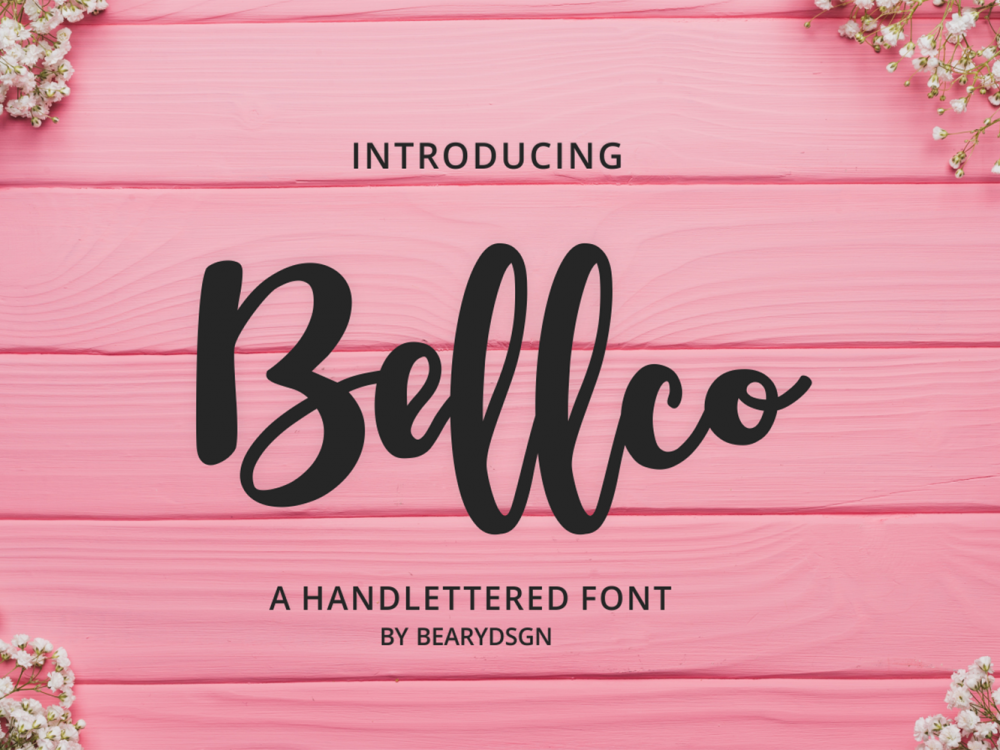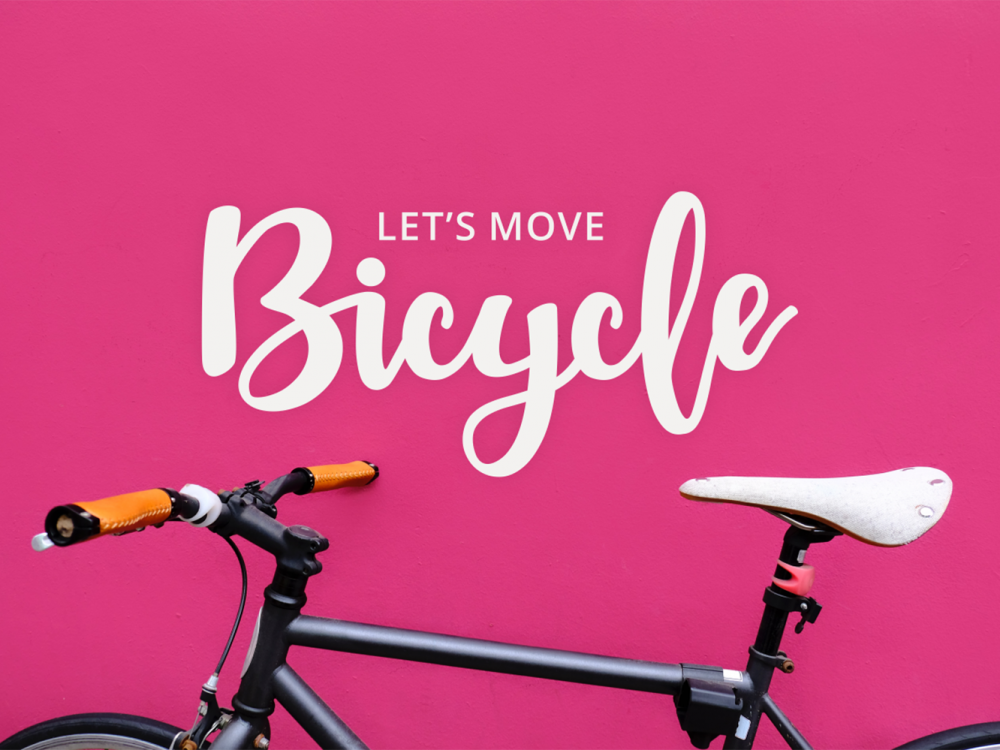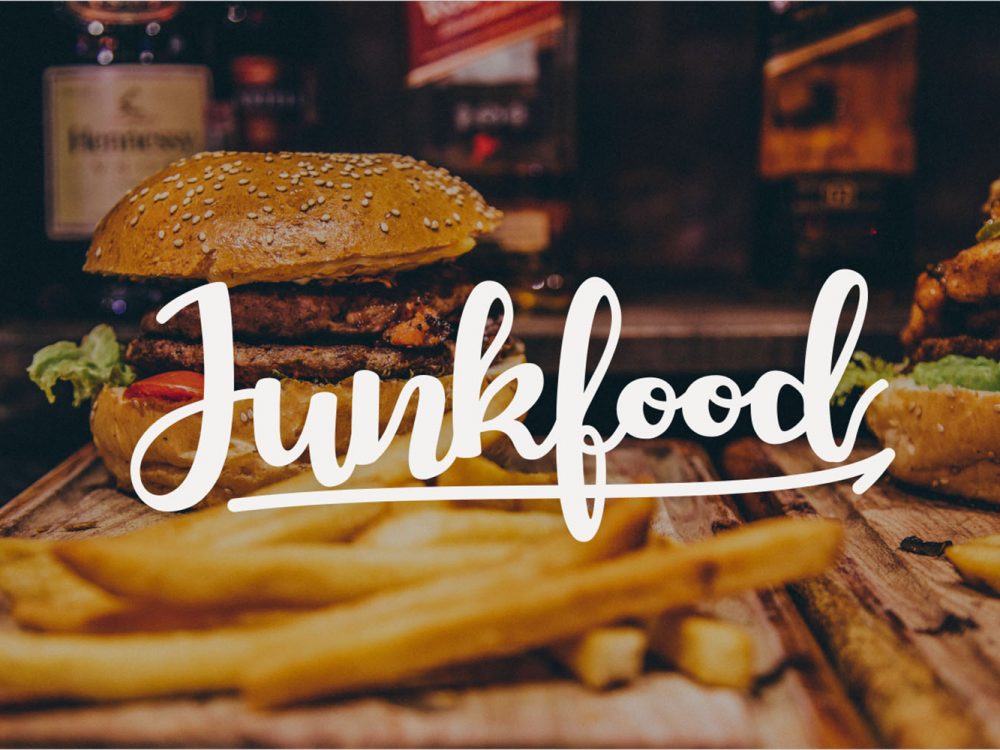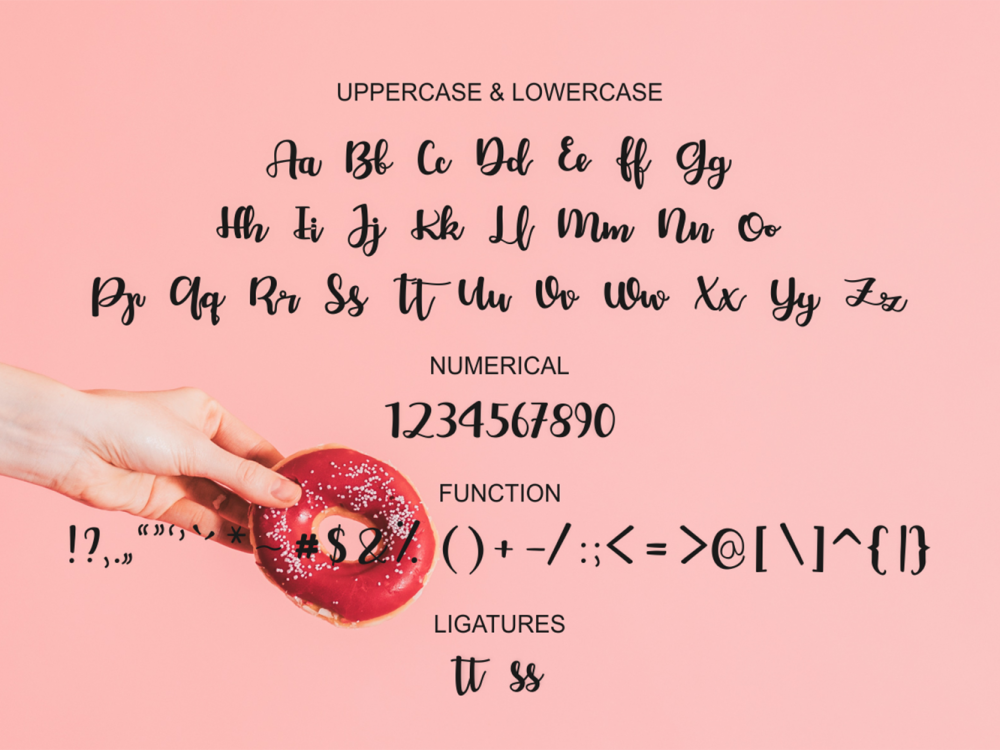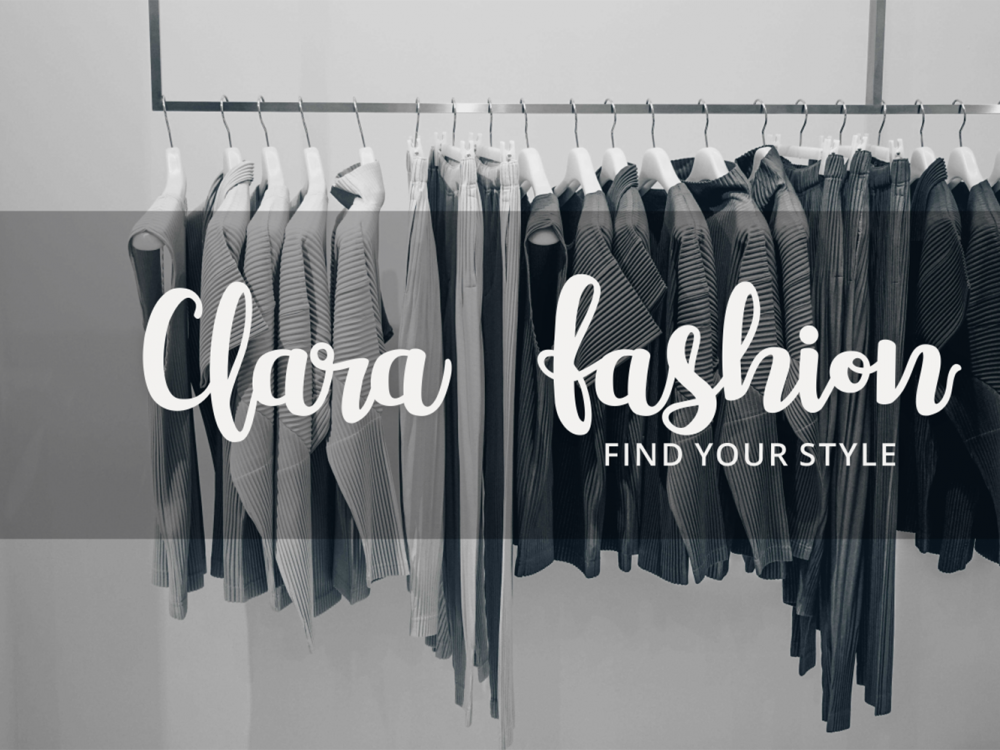
Bellco Free Font
Bellco Free Font is an interesting, fresh, and catchy font with an elegant style. This font is very suitable for creating various projects that require a script font. You can use this font to create memorable posters, wedding invitations, greeting cards, branding, flyers, t-shirt and pillow prints, and more. Improve the quality and increase the popularity of your design projects using this font. If you like it don’t forget to check out the full version.
Author: Beary dsgn